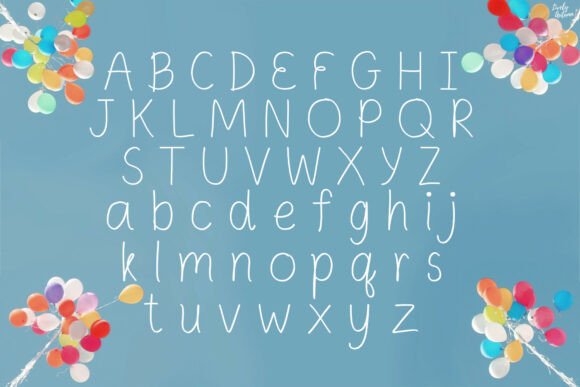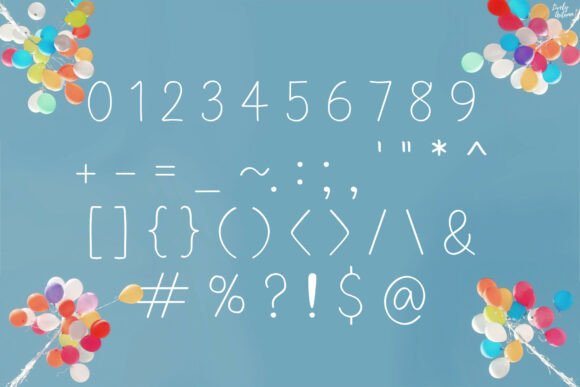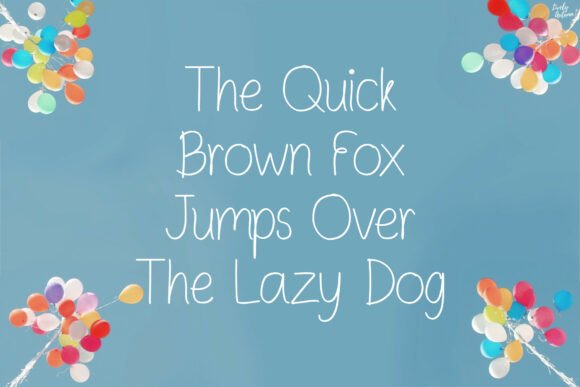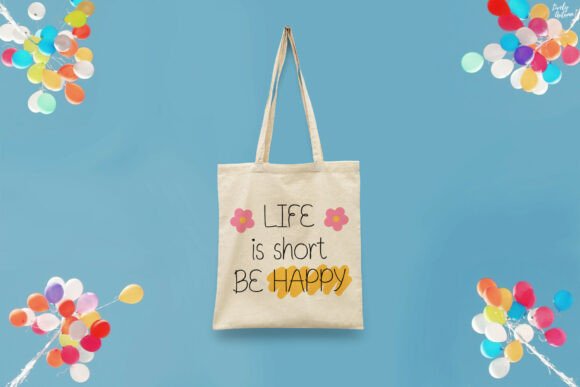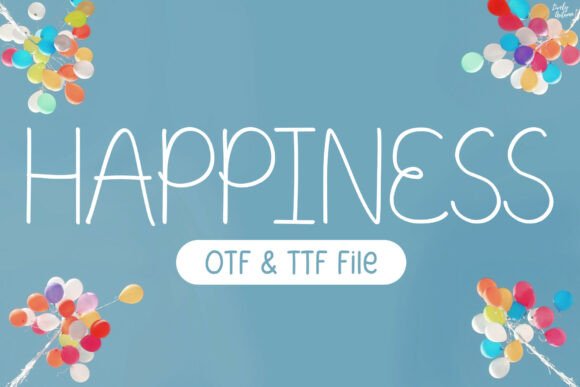
Introducing Happiness Font: The Perfect Handwritten Sans Serif Font for Your Creative Projects
Are you a designer, crafter, or DIY enthusiast looking for a unique and playful font to elevate your creative projects? Look no further than Happiness Font, a simple yet charming handwritten sans serif font that’s perfect for a wide range of applications. In this article, we’ll explore the features and benefits of Happiness Font, and show you how it can add a touch of joy and personality to your designs.
What is Happiness Font?
Happiness Font is a beautiful handwritten sans serif font that’s designed to bring a smile to your face. With its clean and simple lines, this font is perfect for creating a wide range of projects, from invitations and posters to social media graphics, journals, stickers, and more. Whether you’re a professional designer or a crafty DIY enthusiast, Happiness Font is sure to become your go-to font for all your creative endeavors.
Key Features of Happiness Font
So, what makes Happiness Font so special? Here are just a few of its key features:
- Handwritten sans serif font: Happiness Font is a unique and playful handwritten sans serif font that’s perfect for adding a personal touch to your designs.
- Uppercase, lowercase, numbers, and punctuation: This font includes a full range of characters, including uppercase and lowercase letters, numbers, and punctuation marks, giving you everything you need to create beautiful and professional-looking designs.
One of the best things about Happiness Font is its versatility. This font is perfect for a wide range of projects, including:
- Invitations: Whether you’re planning a wedding, birthday party, or baby shower, Happiness Font is the perfect choice for creating beautiful and eye-catching invitations.
- Posters: With its bold and playful design, Happiness Font is perfect for creating posters that grab attention and make a statement.
- Social media graphics: Add a touch of personality to your social media graphics with Happiness Font, perfect for creating engaging and shareable content.
- Journals and planners: Happiness Font is also perfect for creating journals and planners that are both functional and beautiful.
- Stickers and more: And, with its versatility and playfulness, Happiness Font is perfect for creating a wide range of other projects, from stickers to gift tags and more.
Why Choose Happiness Font?
So, why should you choose Happiness Font for your creative projects? Here are just a few reasons:
- Unique and playful design: Happiness Font has a unique and playful design that’s sure to add a touch of personality to your projects.
- Easy to use: With its simple and clean design, Happiness Font is easy to use and pairs well with a wide range of other fonts and design elements.
| Font Name | Happiness Font |
| Author | LivelyAutumn 11.11 |